What Is a Good Font for Roman Numerals?
Looking for a good font for Roman numerals? We've got you covered. Today we'll examine what Roman numerals are and then look at what font styles are most suitable to use for Roman numerals.
What Are Roman Numerals?
The symbols are: I, V, X, L, C, D, and M, which represent 1, 5, 10, 50, 100, 500, and 1,000 respectively. These seven letters are used to create thousands of numbers.
When Roman numerals are written largest to smallest from left to right, this indicates that the symbols are to be added together to create a larger number, e.g. VI = 6. However, when a smaller number is placed before a larger one, this indicates that the first number is to be subtracted from the one that follows, e.g. IV = 4.
When Are Roman Numerals Used Today?
King Charles III via Wikimedia CommonsRoman numerals are still quite popular today and are often used in very specific ways. For example:
- to mark the hours on a clock face
- for competitions such as the Super Bowl and Olympic Games, to represent how many times the event has been held
- page numbers for introductory material in some books
- for book chapters
- copyright dates on film and TV shows
- to refer to kings, queens, emperors, and popes
Good Fonts for Roman Numerals
When looking for a good font for Roman numerals, there are two directions you can go in. One is the classic route of the strong serif font, and the other is the more contemporary route of the bold sans serif font.
Classic Roman Numeral Fonts
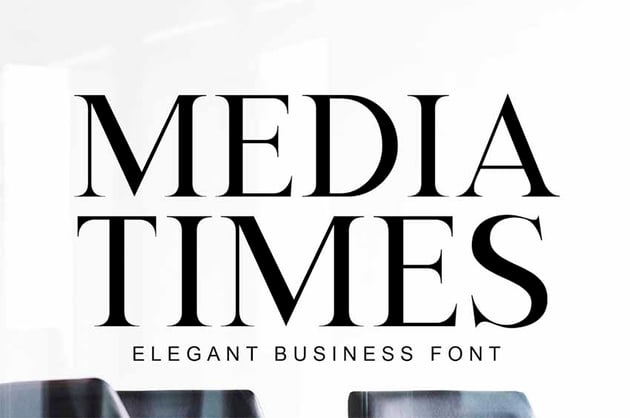
Media Times has the kind of pronounced serifs that you need when you want to create classic Roman numerals. It's a great choice for all kinds of designs, including tattoos.
When you need a good font for Roman numerals, you can't go wrong with Brillion Stage Roman Numbers Font. Its I, V, X, L, C, D, and M offer the kind of look you need when you want to create a distinctive look
Rosie Brown Roman Numbers Font contains two different fonts: a serif and a cursive. For our purposes, it's the serif that we are interested in. When you need a good font for Roman numerals, choose the Rosie Brown serif.
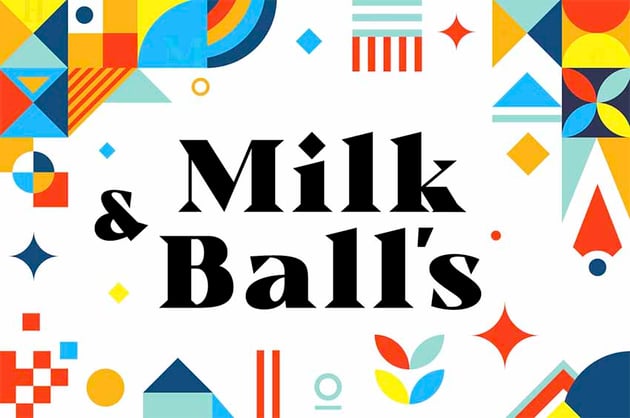
Create your own unique look with Milk & Balls Roman Numeral Fonts. This serif font family offers 11 fonts from thin to heavy, so you're spoilt for choice when it comes to choosing one that's perfect for your needs.
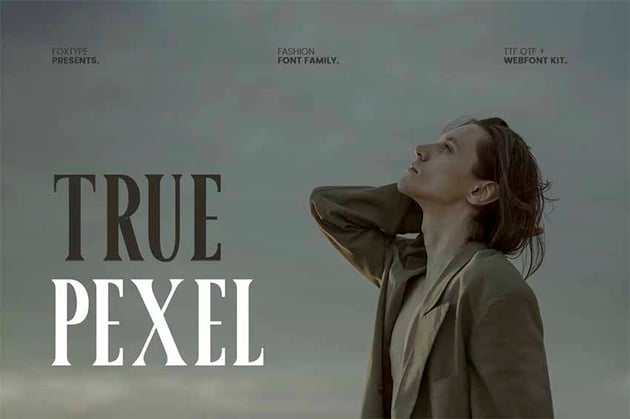
When you need a Roman numeral font style that's on the heavier side, choose Luxea Roman Numeral Font. The heaviness of the text is balanced with a condensed look to create a versatile and aesthetically pleasing font.
Capture the classic Roman numeral font look with Domani Roman Numbers Font. This wonderful serif also offers decorative alternates that complement the classic letters and can be used in certain areas of your project if needed.
Contemporary Roman Numeral Fonts
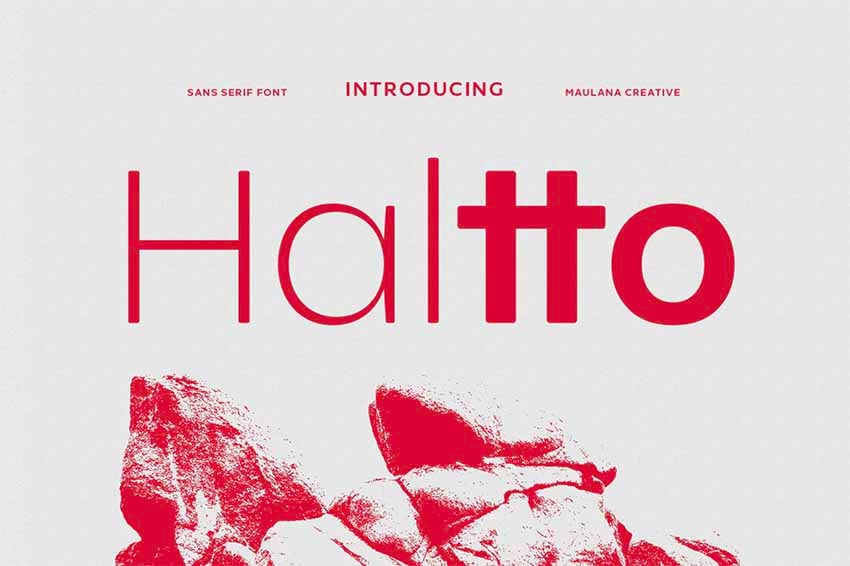
If the contemporary look is more your style, then this is the Roman numeral for you. Haltto Sans Serif Roman Numeral Font just offers two weights, thin and bold, but really that's all you need to create the perfect Roman numerals.
High Sans Serif Roman Numeral Font will bring a condensed style to these contemporary numerals. This elegant font is offered in four formats: OTF, TTF, WOFF, and WOFF2. It also includes ligatures and alternates that you can use for text in other areas of your project.
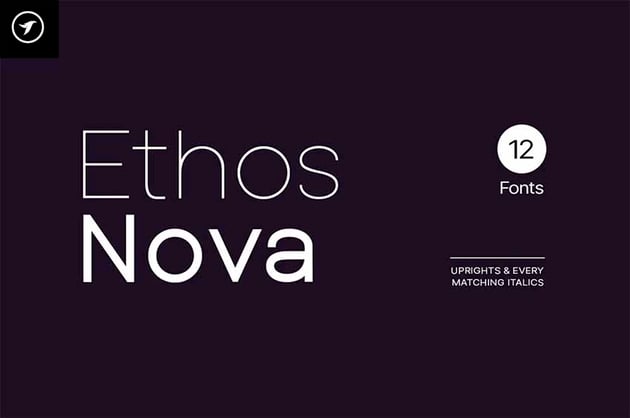
Check out the clean, minimalist lines offered by Ethos Nova Roman Numeral Fonts. This fabulous geometric sans serif offers a whopping six weights to choose from.
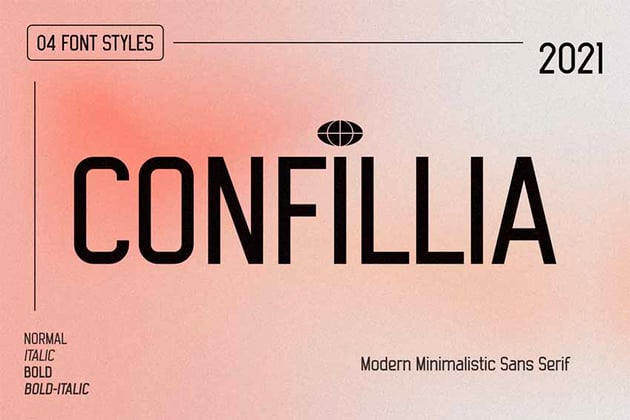
Confillia Sans Serif Roman Numeral Font offers a slightly condensed style which will work very well for Roman numerals. The font includes normal and bold weights, so experiment to find which weight suits your project best.
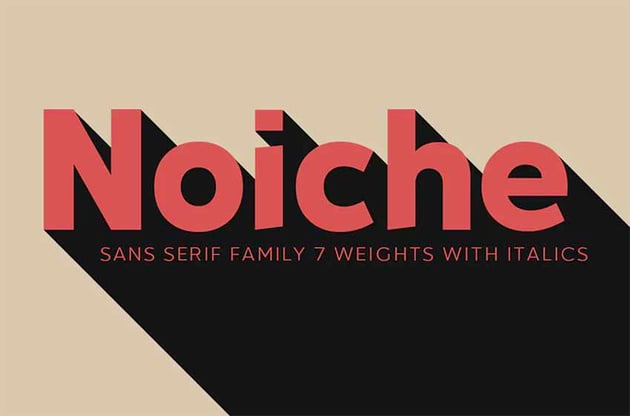
Light, thin, regular, medium, semi-bold, bold, and black. These are the choices of weights you get access to when you choose the versatile Noiche Sans Serif Roman Numeral Fonts.
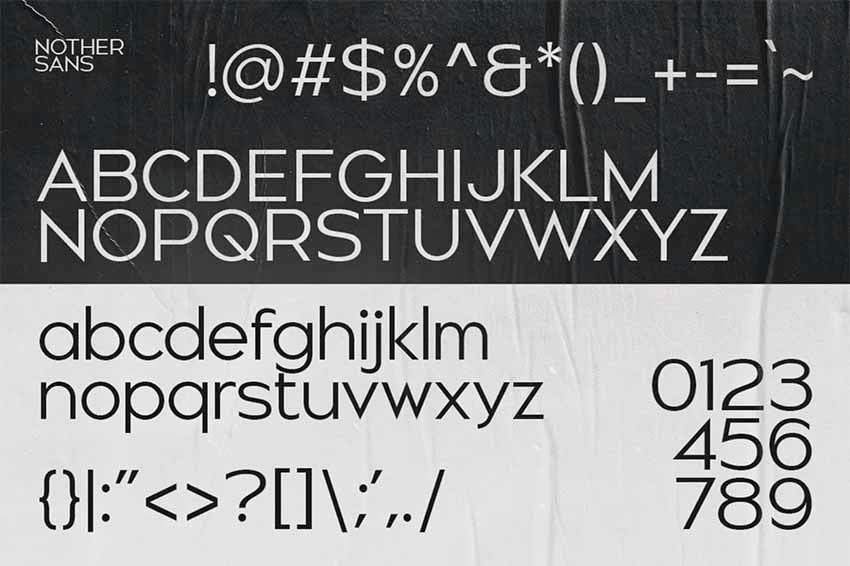
Inspired by high-end fashion and magazine editorials, Nother Sans Roman Numeral Font is an elegant and easy-on-the-eye font that's a good fit when you need to create Roman numerals with a contemporary vibe.
Choose Your Favourite Roman Numeral Font